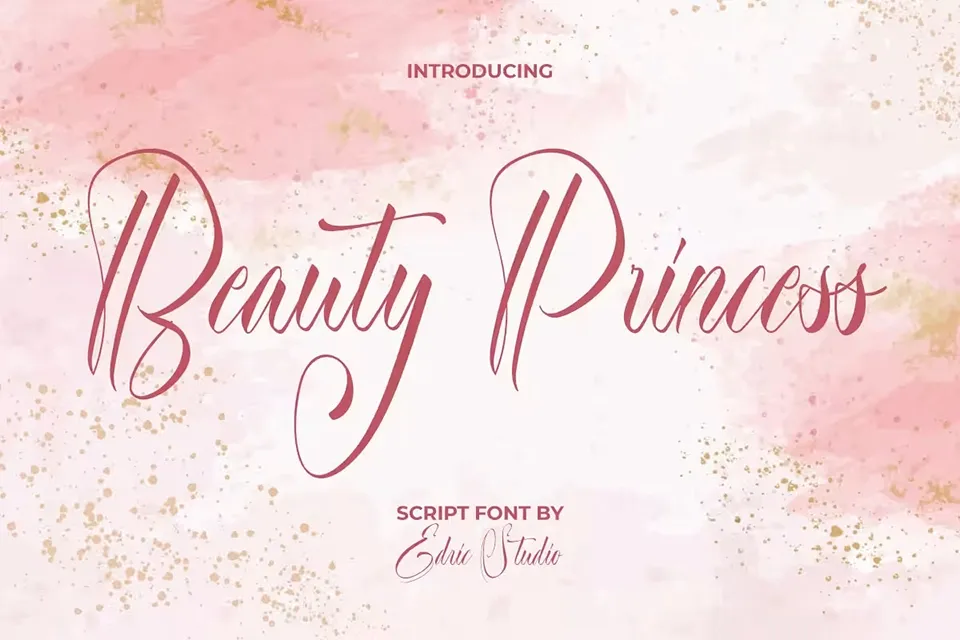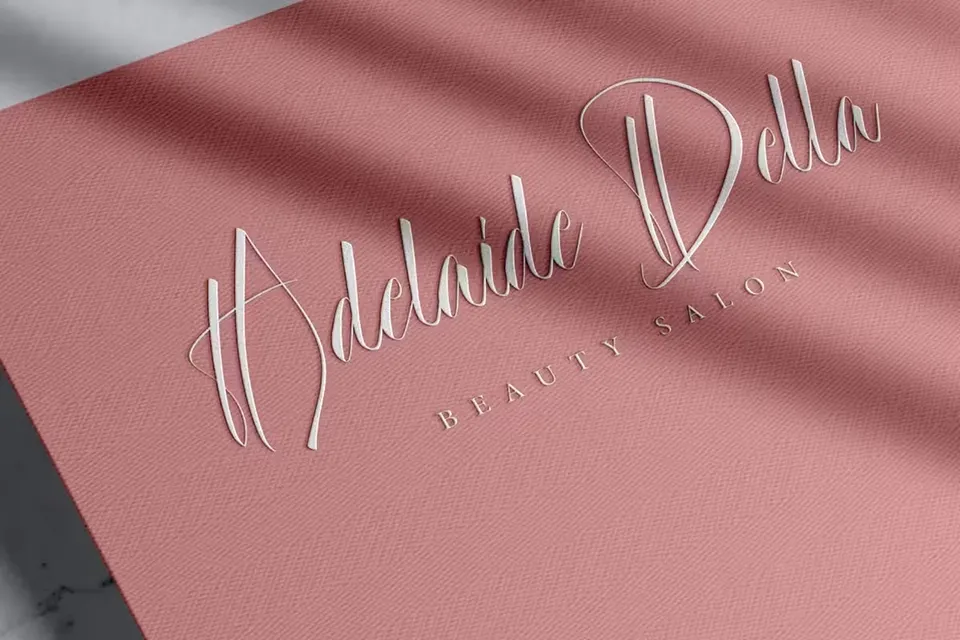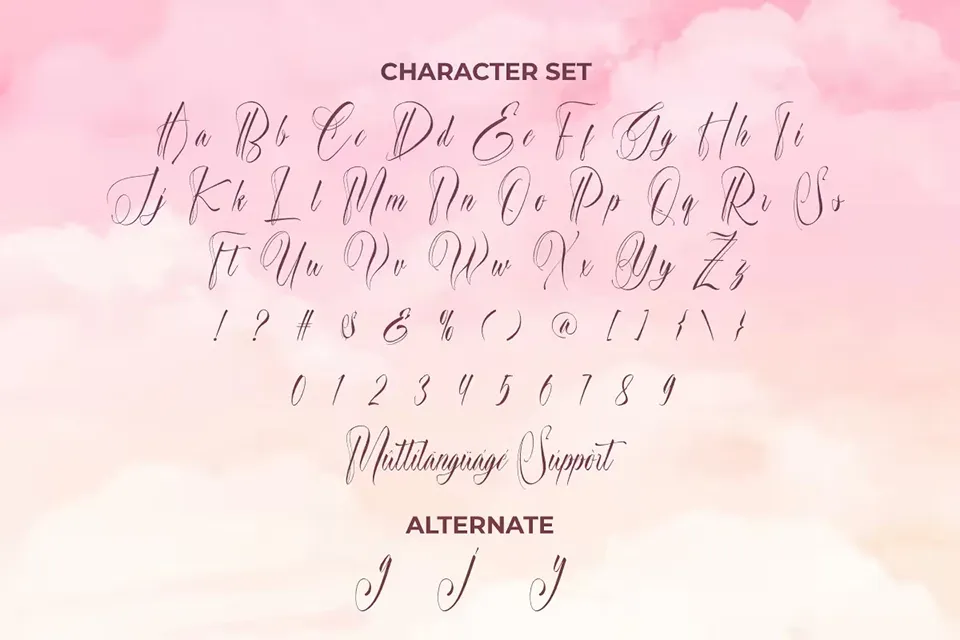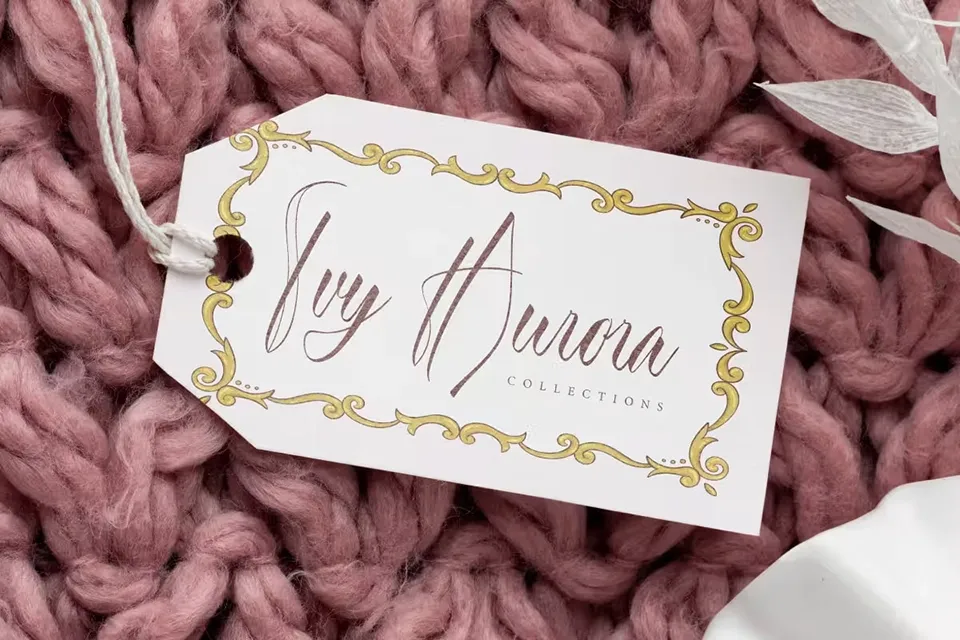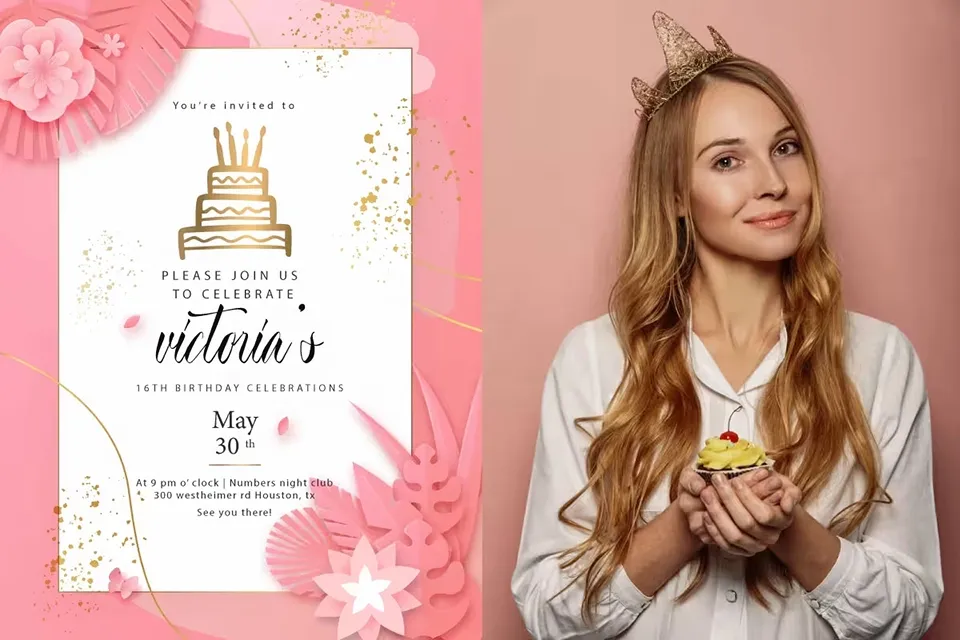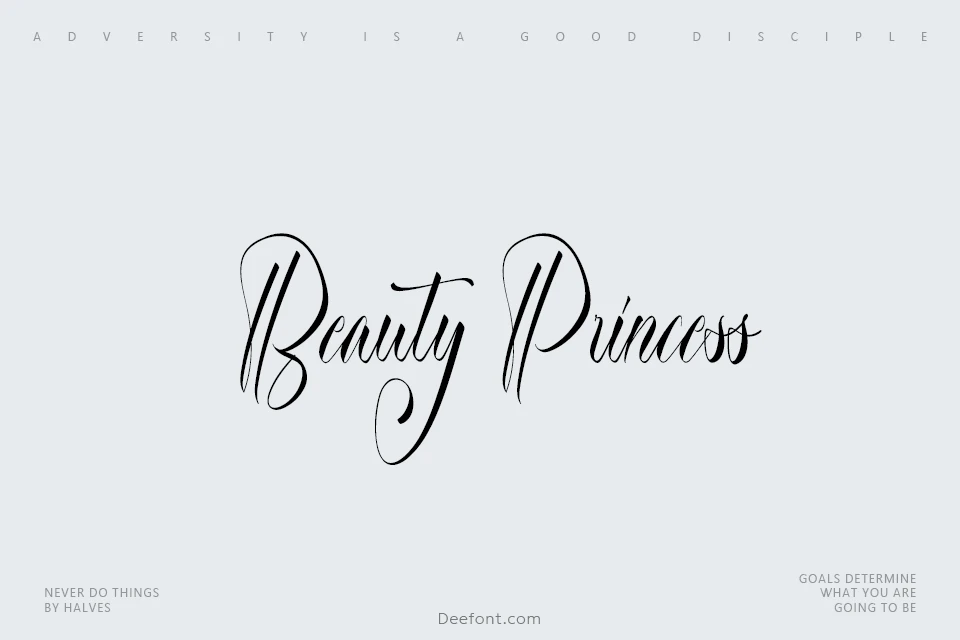
Beauty Princess Font
Beauty Princess Font is a beautiful script font featuring a stylish and royal touch. Carefully crafted for elegance and versatility, this font offers a radiant princess aura, making it perfect for industries such as accessories, beauty clinics, boutiques, cosmetics, event organizers, fashion, florists, homeware, jewelry, perfume brands, publishing, restaurants, skincare, spa salons, and more. It includes uppercase and lowercase characters, numbers, punctuation, alternates, and ligatures, supporting multilingual use and OpenType features. Beauty Princess Font is ideal for birthday cards, brand logos, invitations, packaging, signage, and a variety of creative projects.